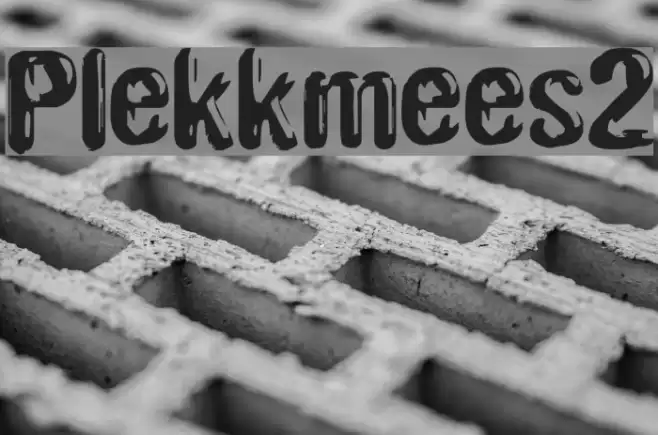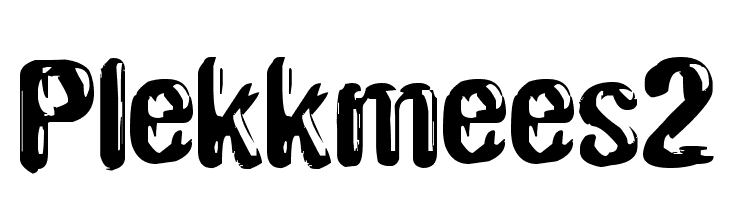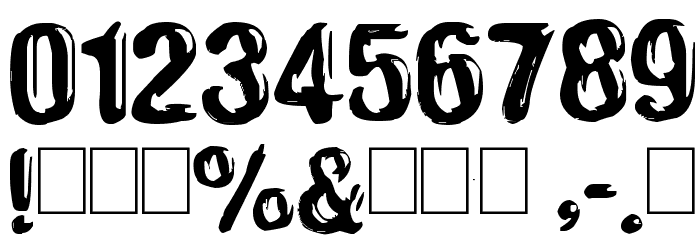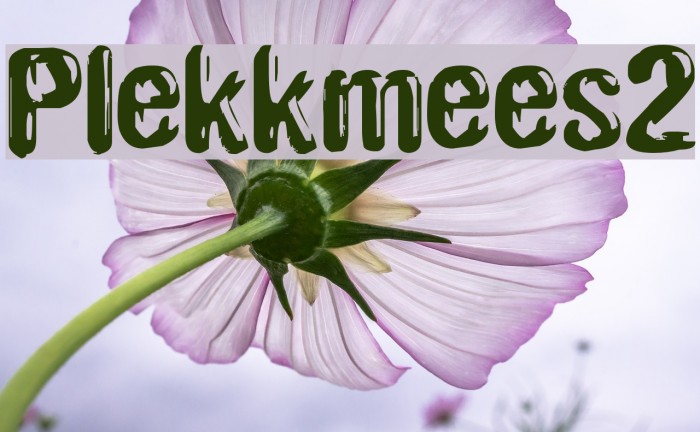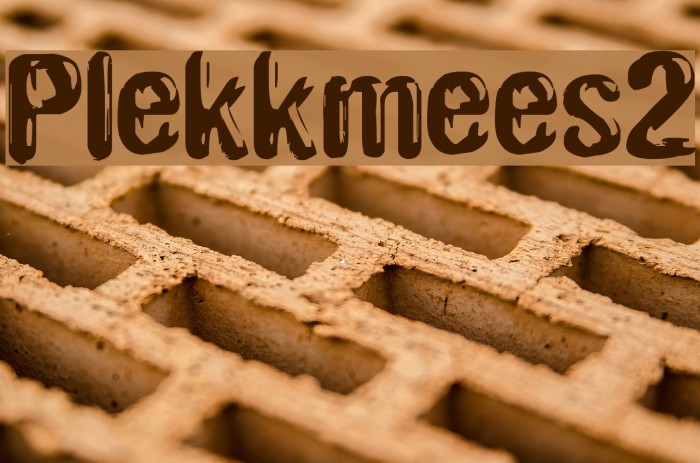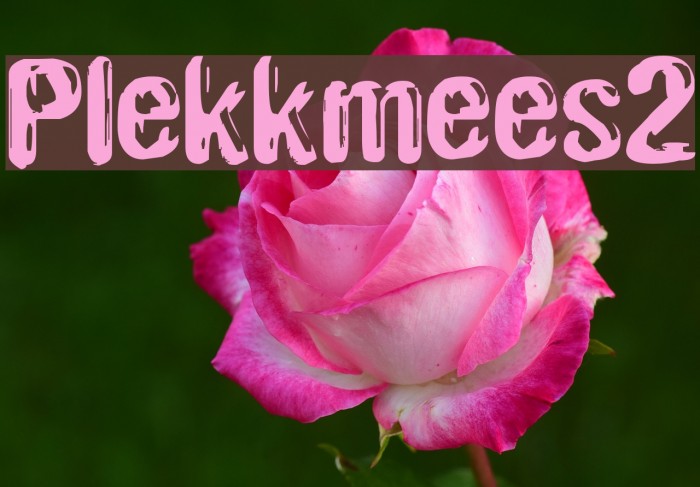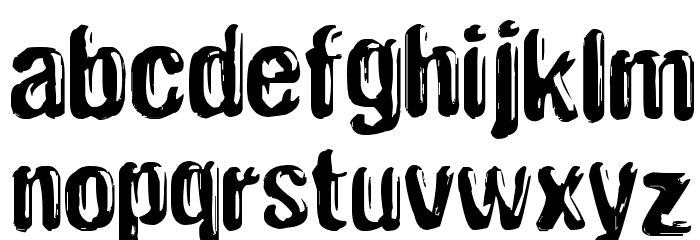
Plekkmees2 Font
Plekkmees2 Description
This font features a bold, distressed style with a hand-painted appearance. Each character has a unique, textured look, giving it a rugged and artistic feel. The uppercase and lowercase letters are consistent in their rough, brushstroke design, adding a dynamic and energetic vibe. Numbers and special characters maintain this aesthetic, ensuring a cohesive look across all elements. The font's irregular edges and varying stroke thicknesses contribute to its distinctive, eye-catching appearance, making it ideal for creative and unconventional projects.
A bold, distressed font with a hand-painted, artistic style from Distorted Eroded fonts.
- Proposed Projects: Ideal for posters, album covers, artistic branding, and creative design projects.
- Overall Style: Artistic, Rugged, Dynamic